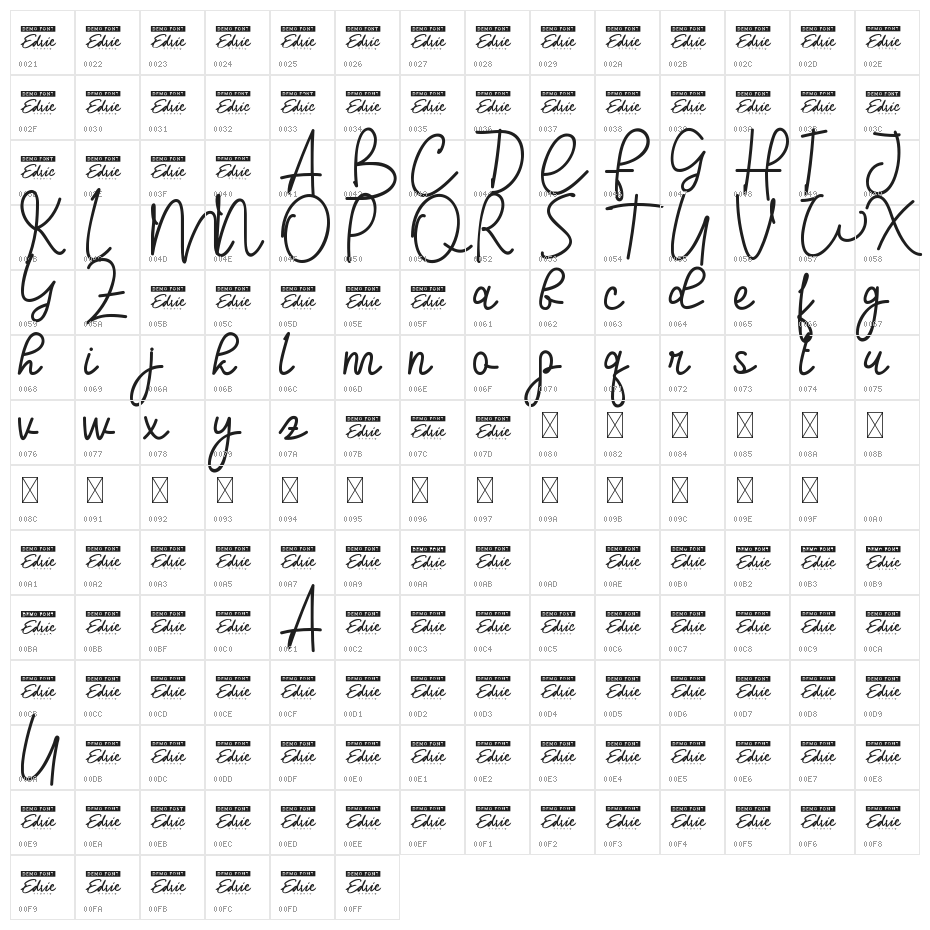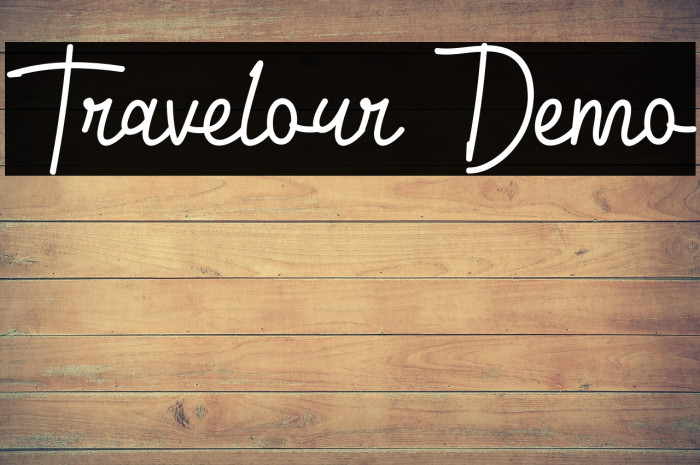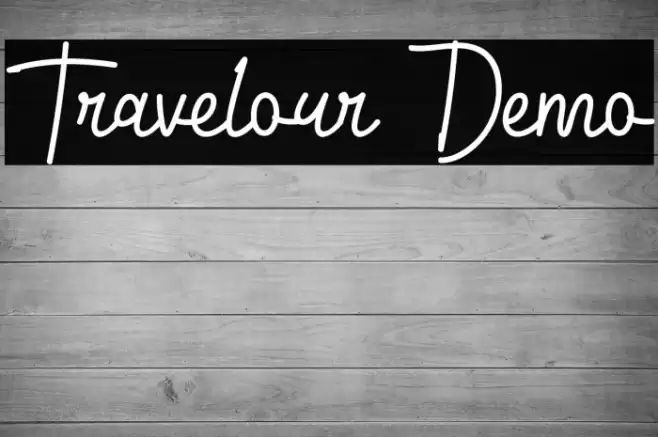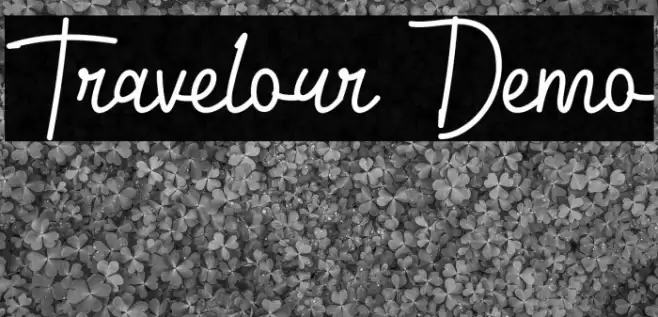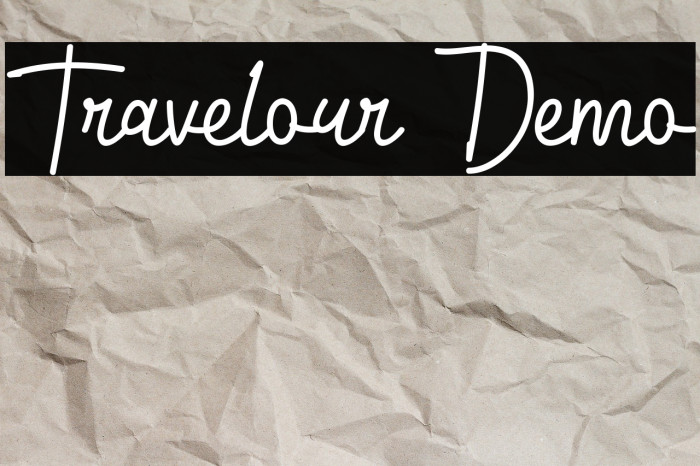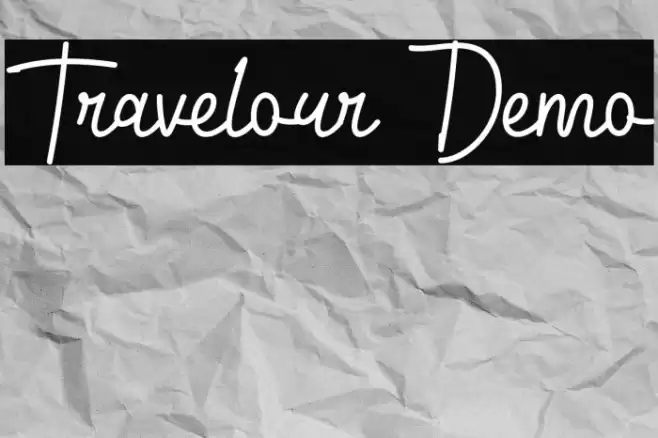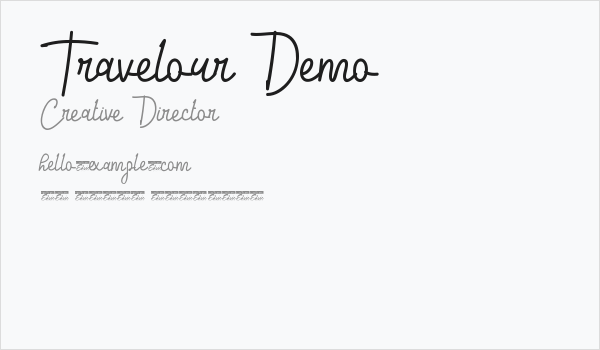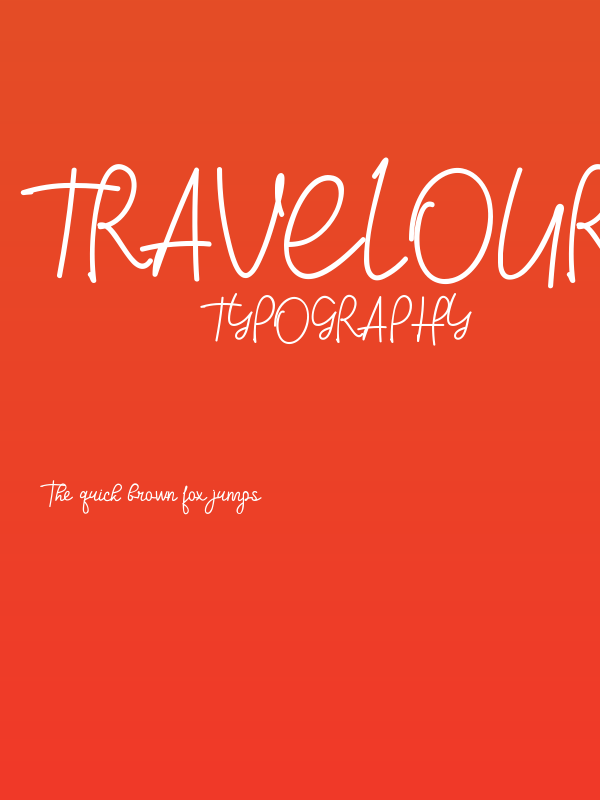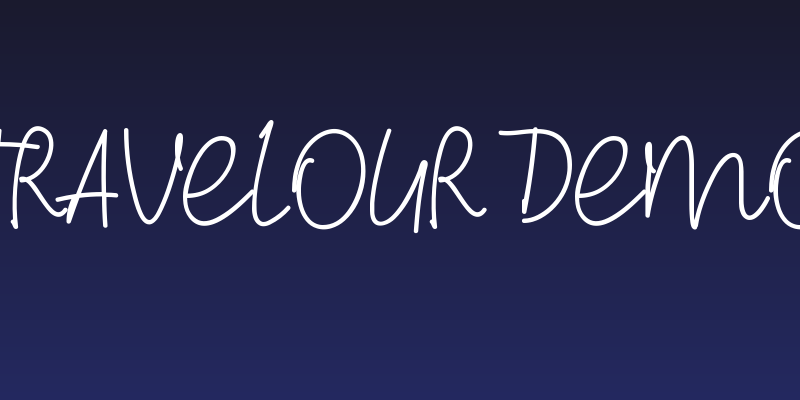
Travelour Demo Font
Travelour Demo Description
This font features a playful and casual handwritten style, characterized by its fluid and connected letterforms. The uppercase letters are tall and slightly narrow, with a consistent stroke width that gives a uniform appearance. The lowercase letters are more varied, with some letters featuring loops and swirls that add a touch of elegance and whimsy. The overall design is informal yet stylish, making it suitable for creative projects. The font maintains a good balance between readability and artistic flair, making it versatile for various design needs.